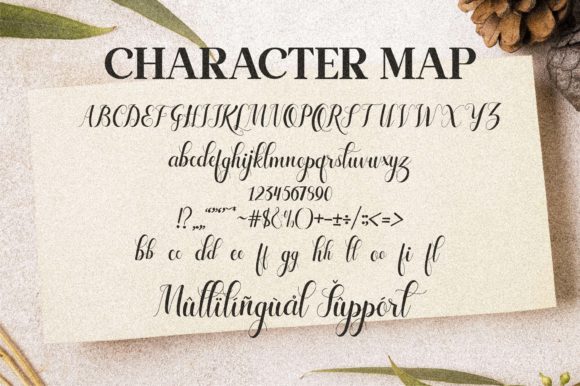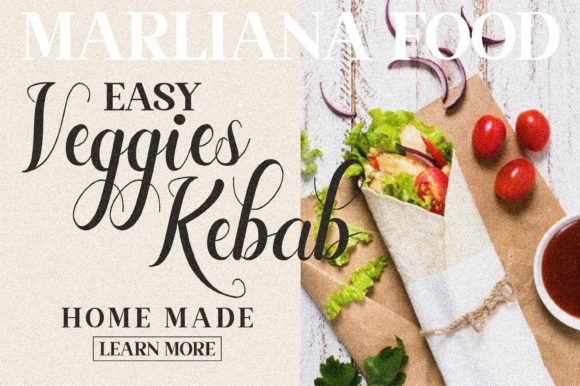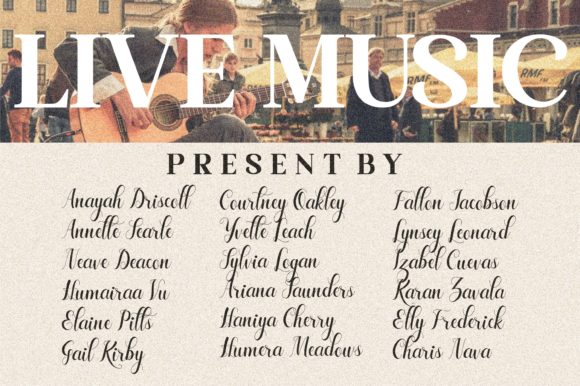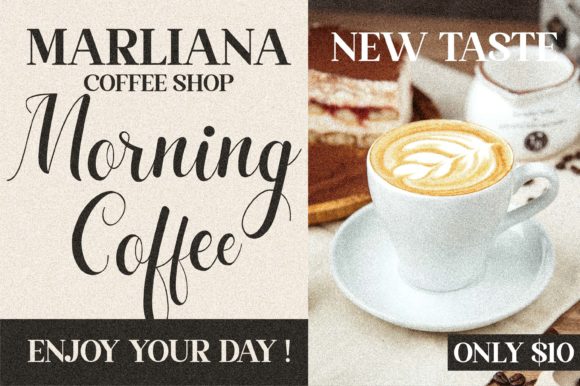
Laylarita Font
About Laylarita Font
Laylarita is a delicate and elegant handwritten font. Its distinct and well rounded letters make this font a masterpiece. Fall in love with its incredibly versatile style and use it to create spectacular designs!